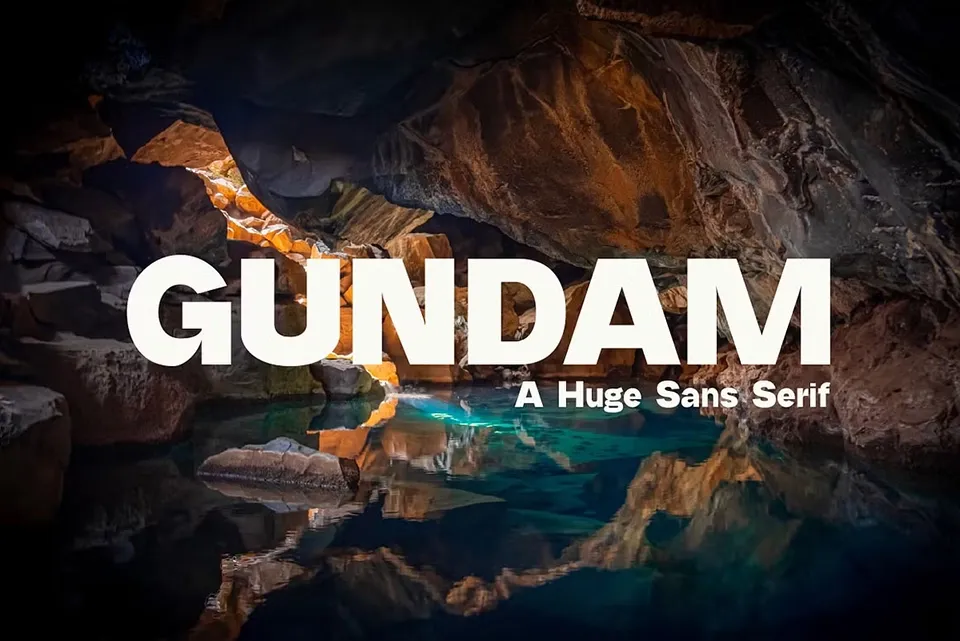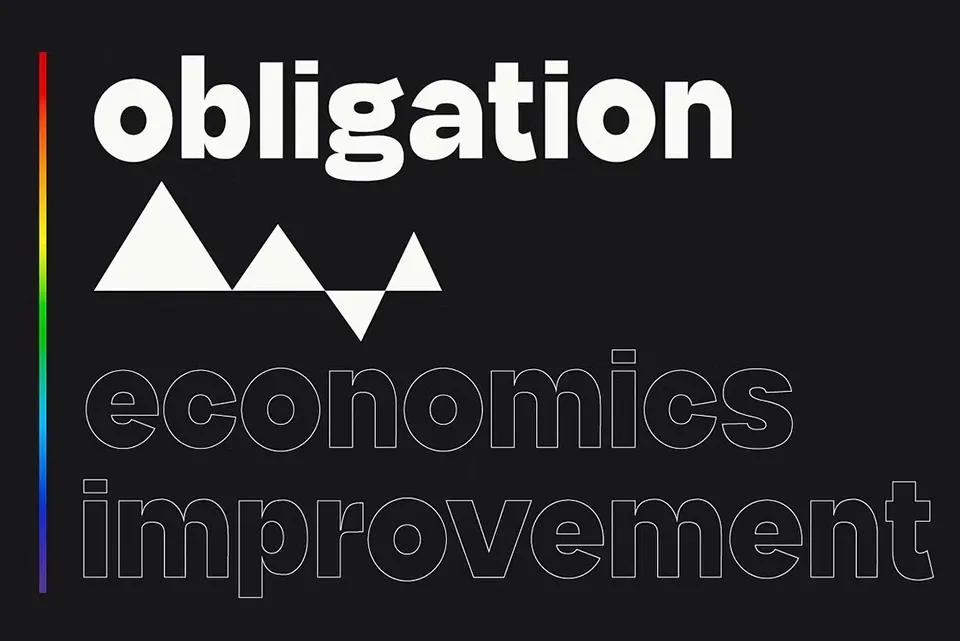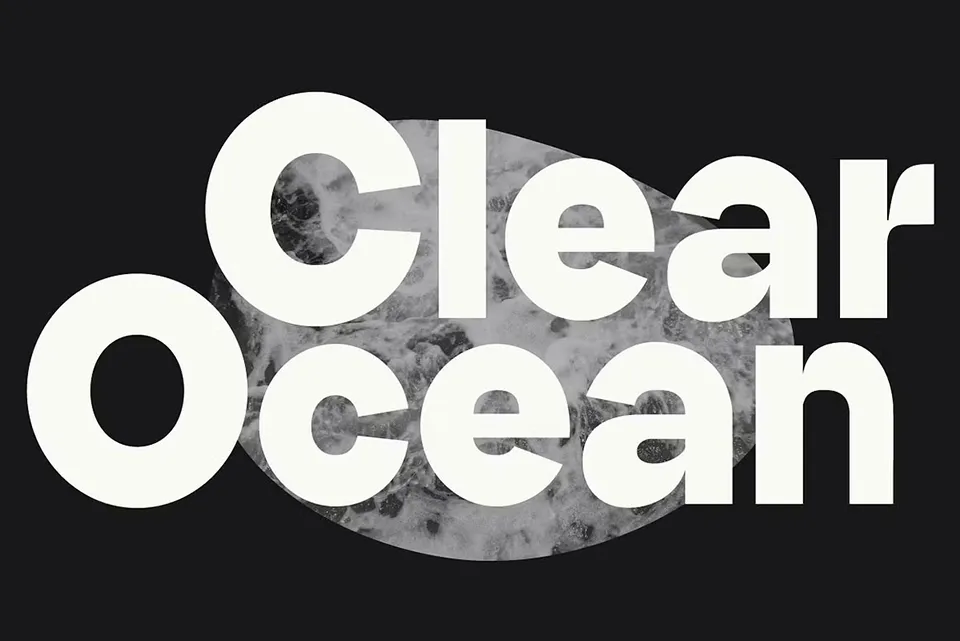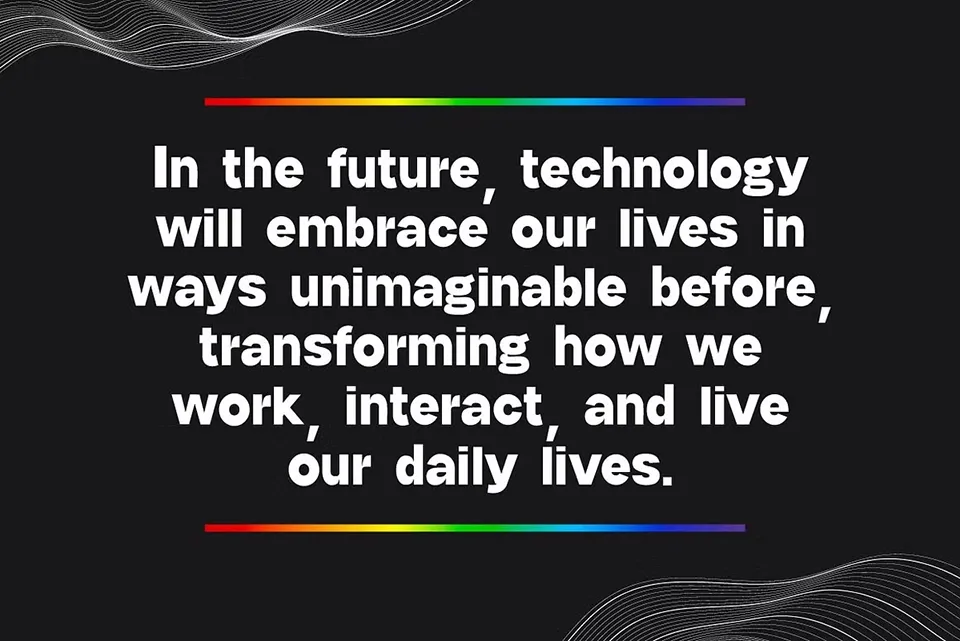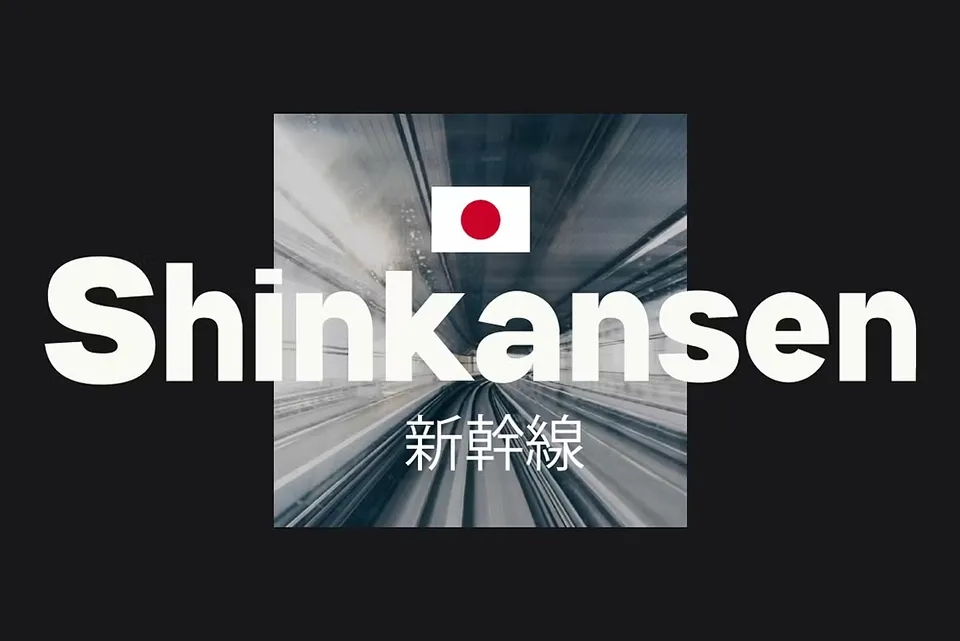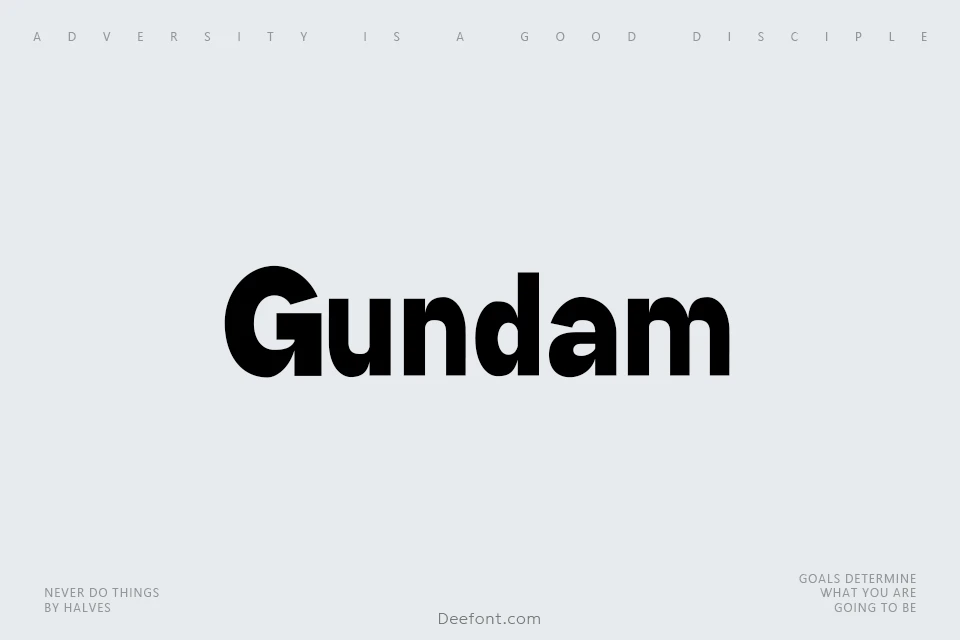
Gundam Font
Gundam Font is a bold and commanding sans-serif typeface designed to make a statement. With its thick, impactful letterforms and subtle design quirks, it exudes strength, character, and modernity. Ideal for headlines, titles, branding, and packaging, Gundam ensures your message stands out with confidence and clarity. Despite its robust appearance, the font remains highly readable, making it versatile for both display and text applications. Perfect for projects that demand attention and a sense of power, Gundam is available for personal use, while commercial licensing is required for professional endeavors.